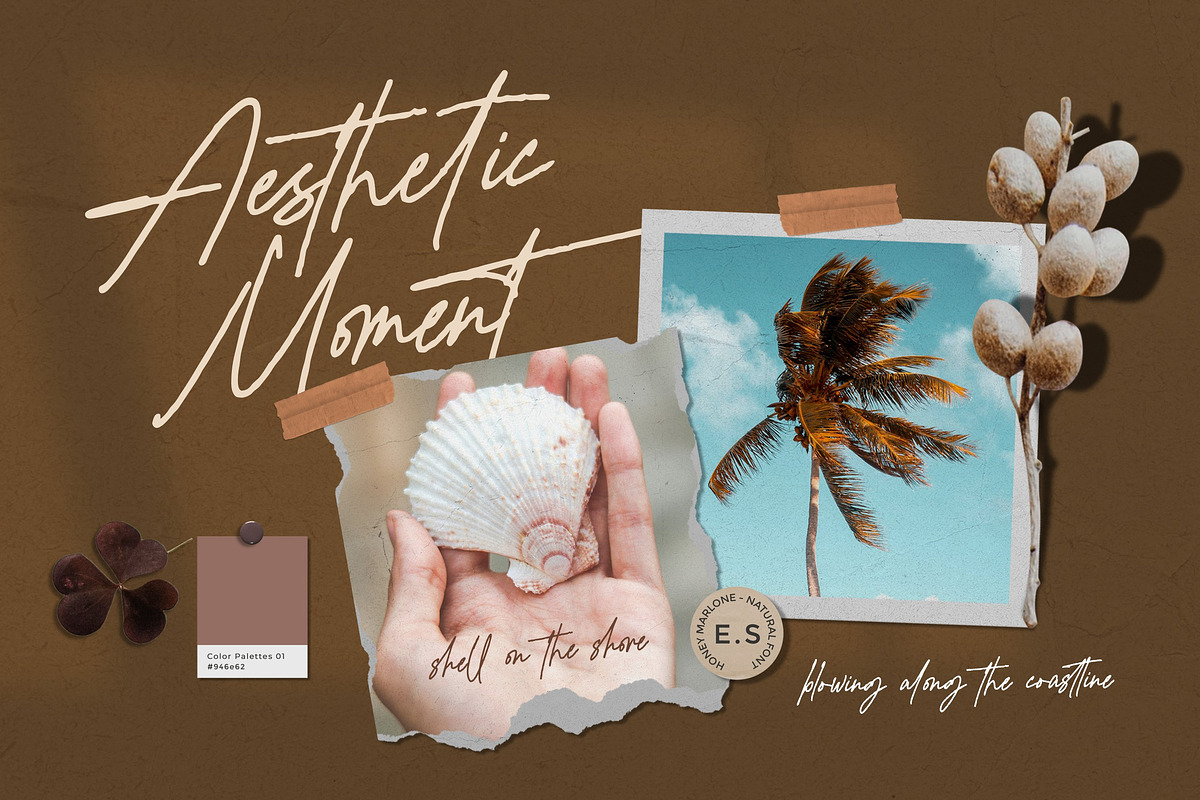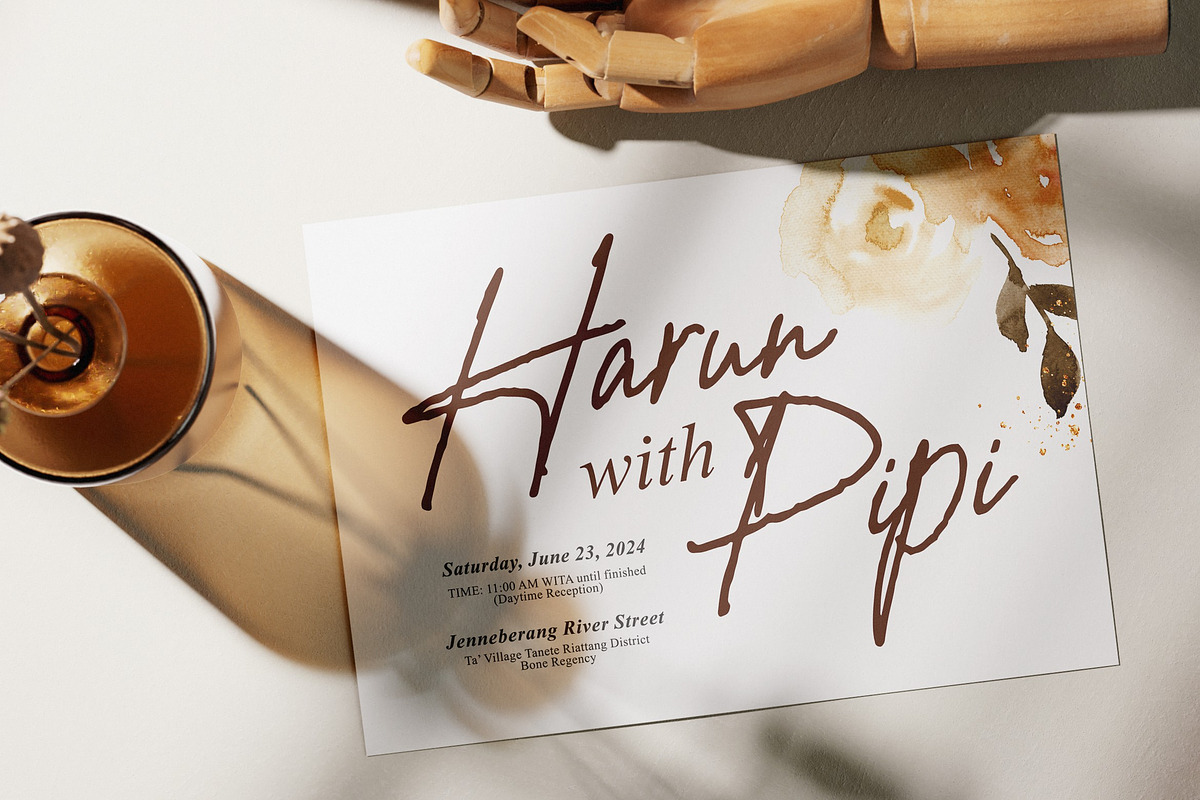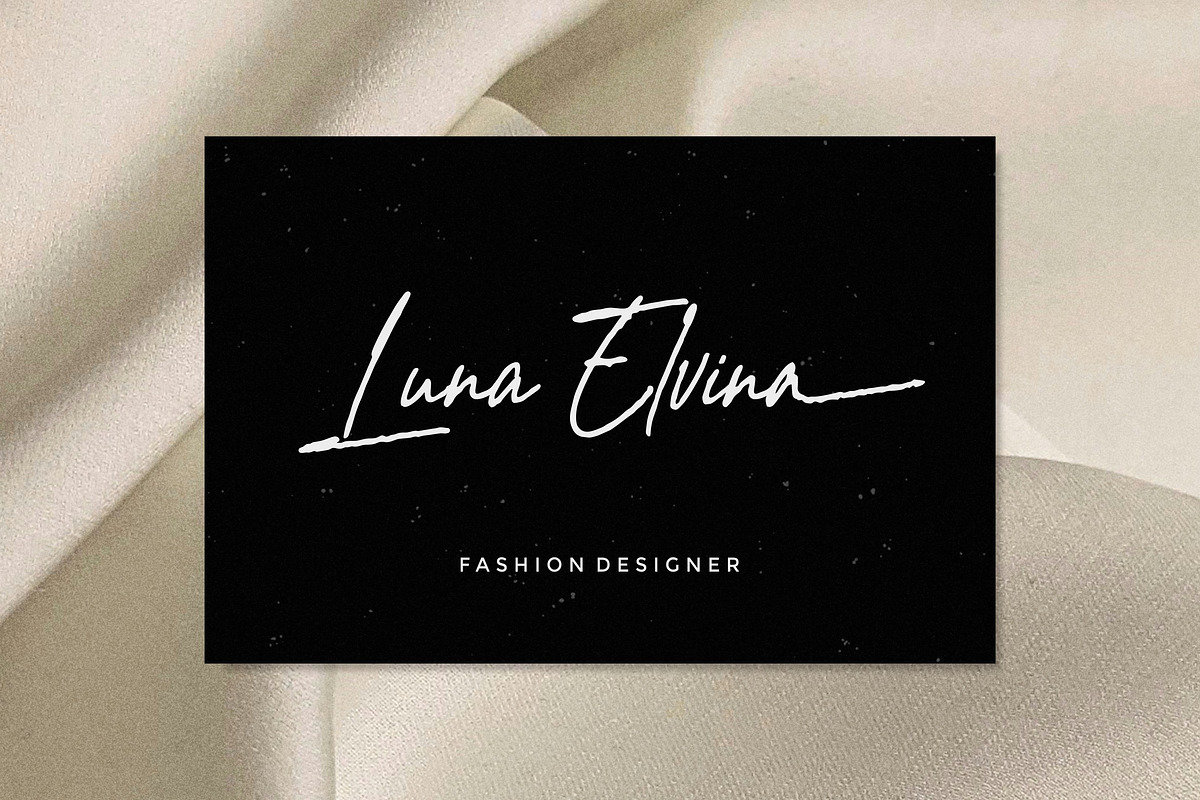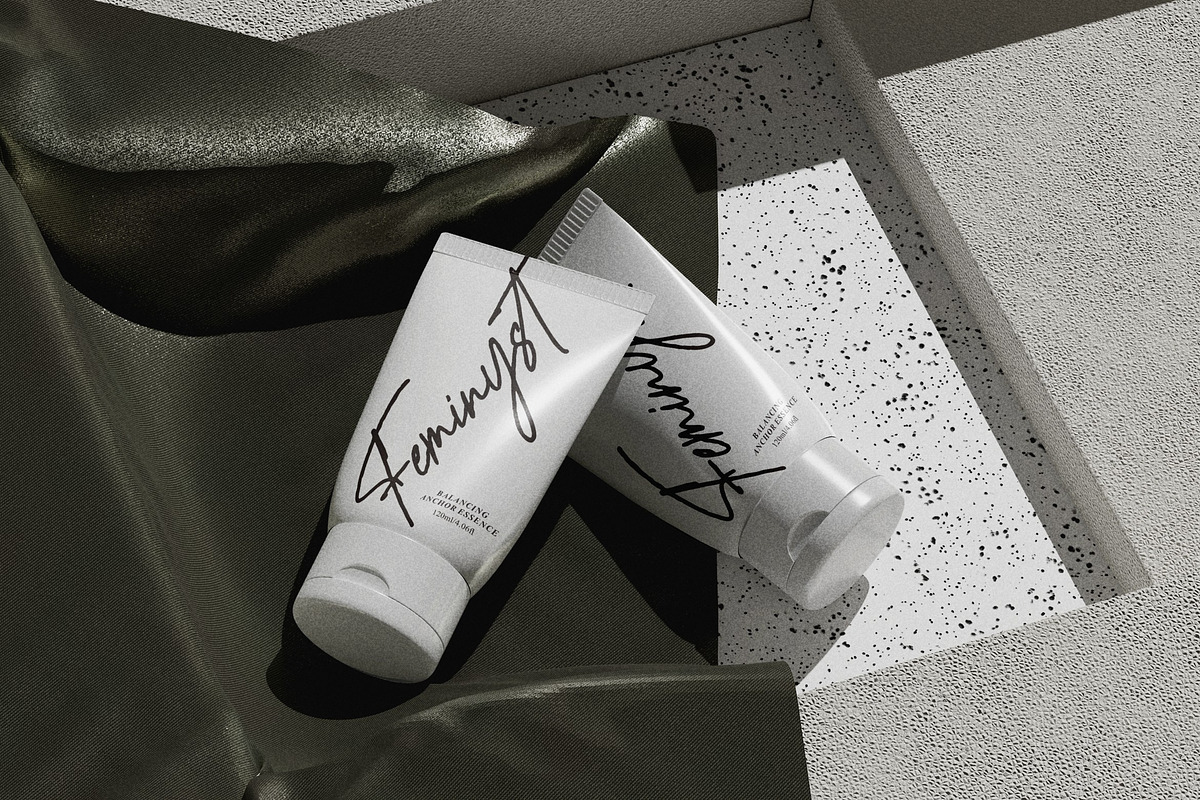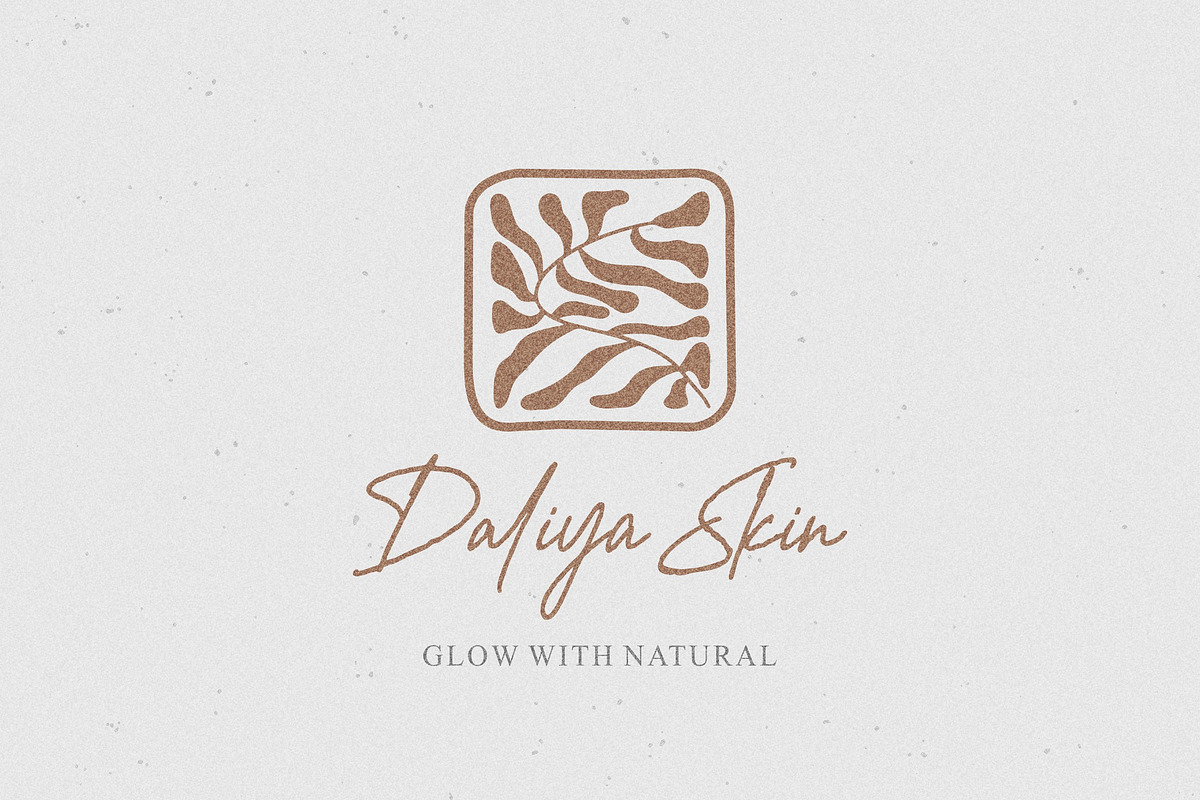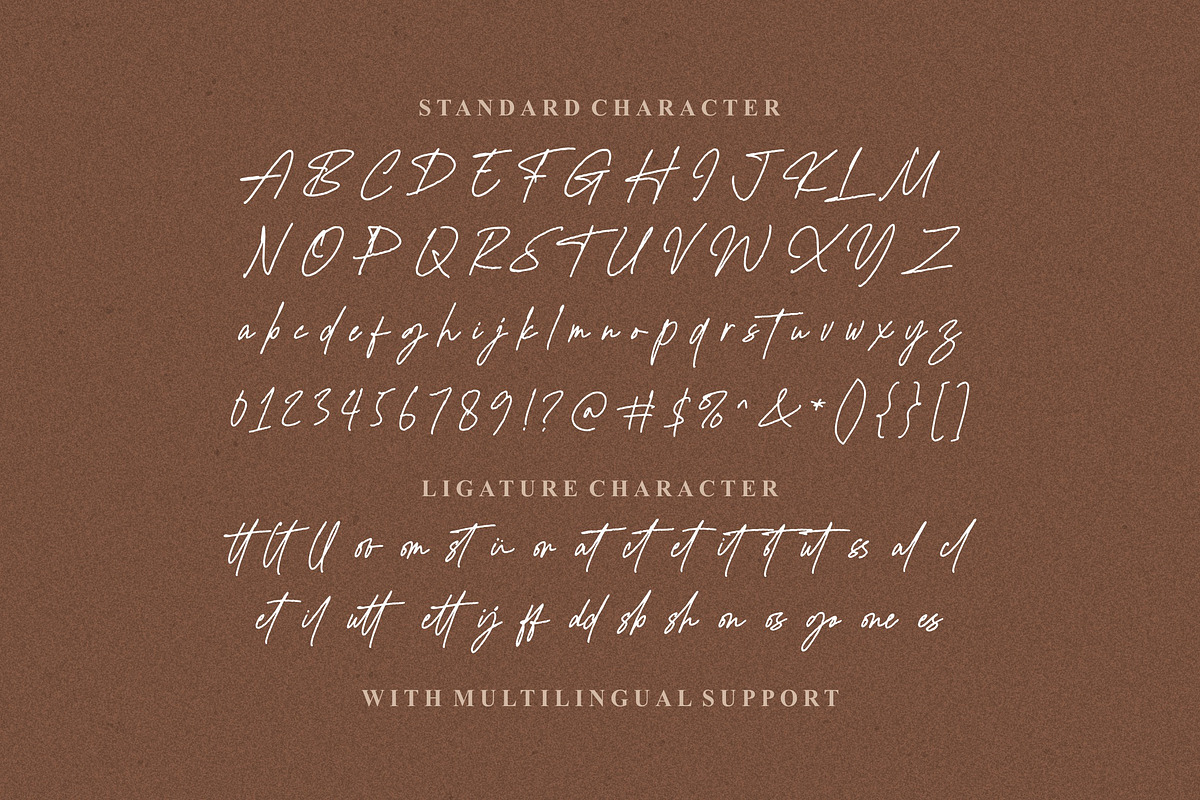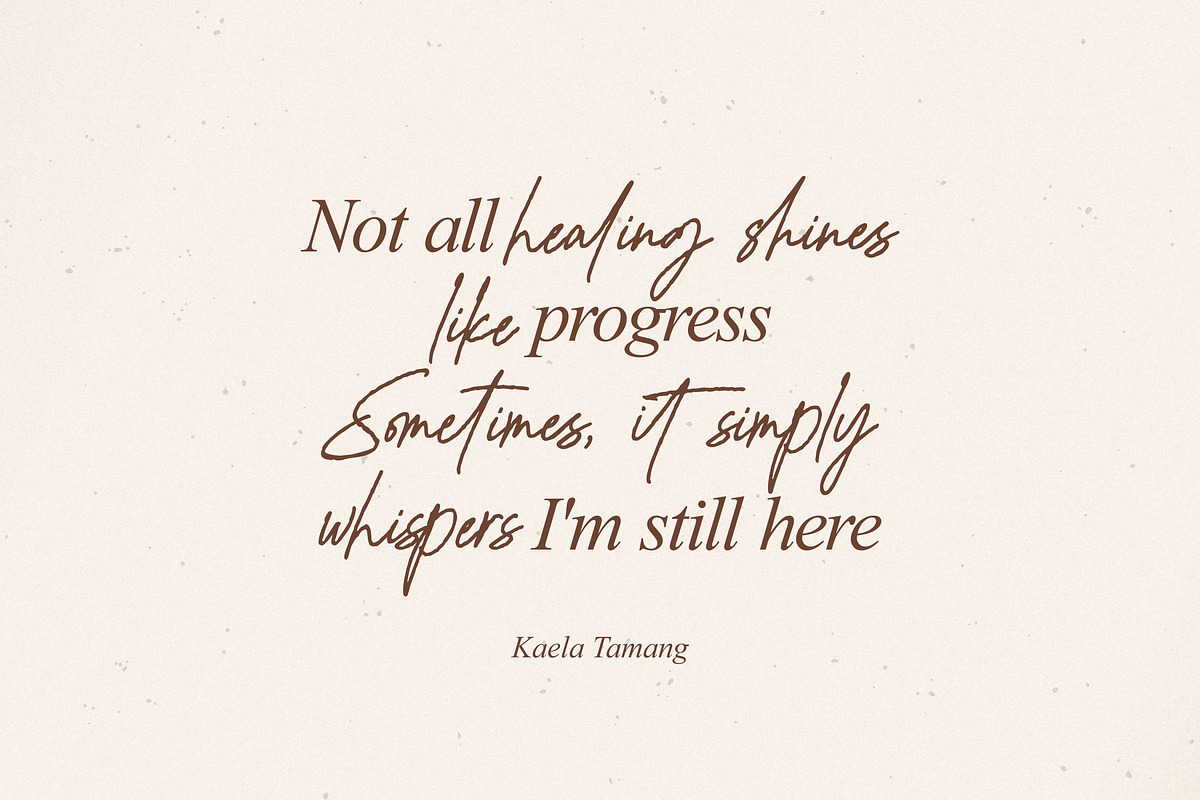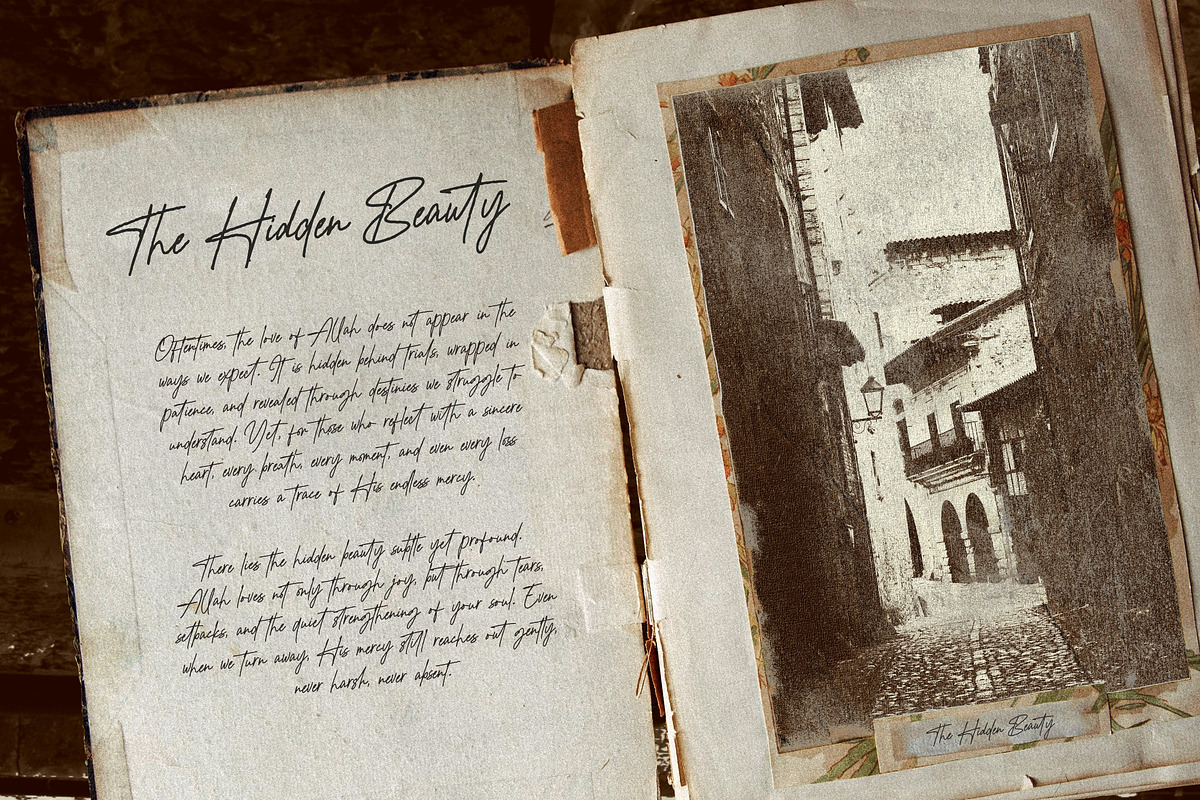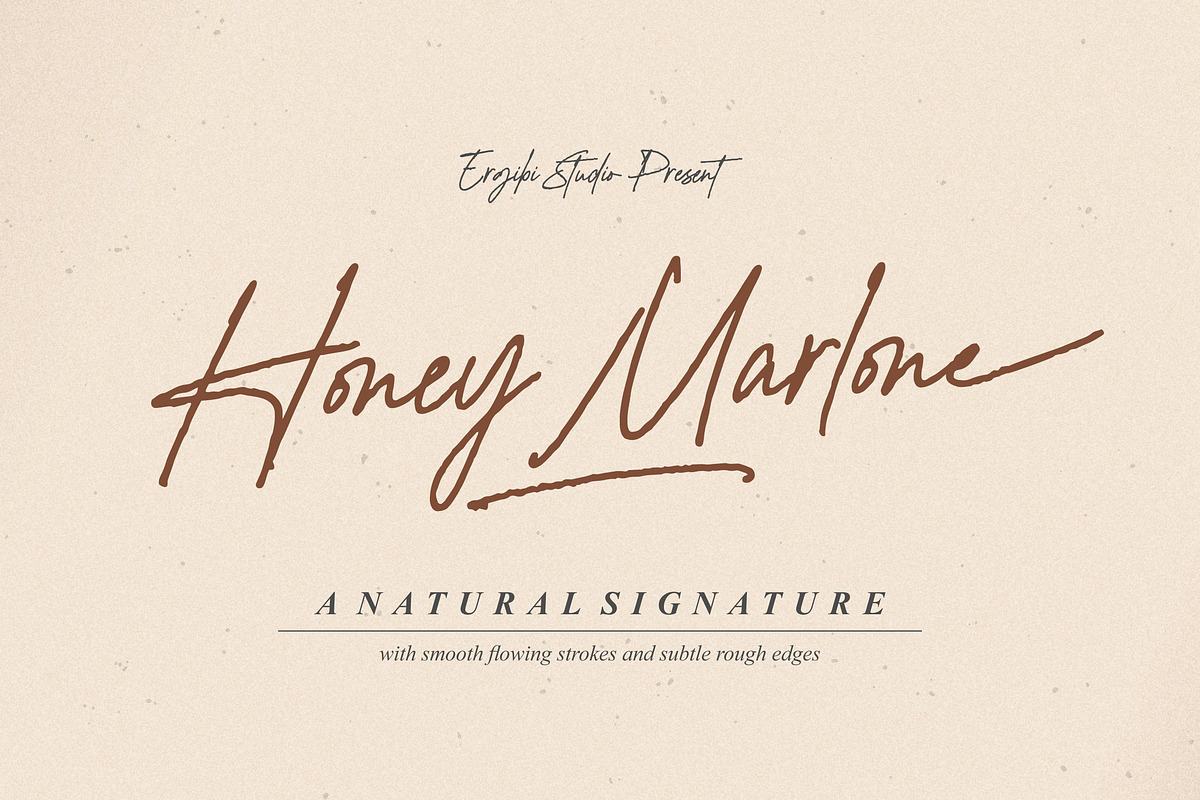
Honey Marlone - Natural Font
Honey Marlone is a natural handwritten font that radiates warmth and a personal touch, with smooth flowing strokes and subtle rough edges. Each letter feels as if it were written with an ink pen on cozy afternoon paper. Its organic, slightly irregular shapes give it an authentic feel, making it perfect for relaxed themes, personal branding, invitations, quotes, and product packaging that aims to feel friendly and approachable.